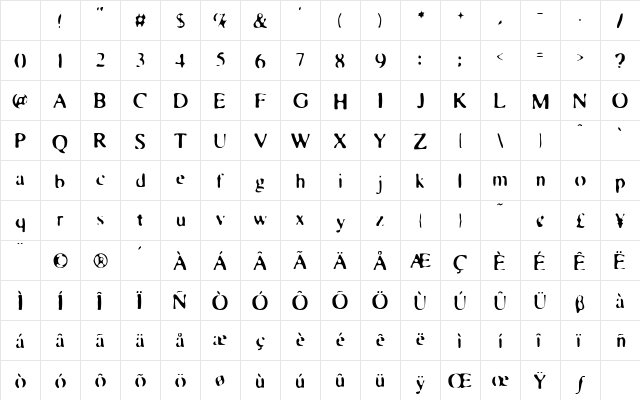
Complete Blearex Medium glyph index. Displaying only characters natively supported by Blearex Medium font.
Blearex is a composed and adaptable typeface that performs quietly and consistently across a wide range of design contexts.